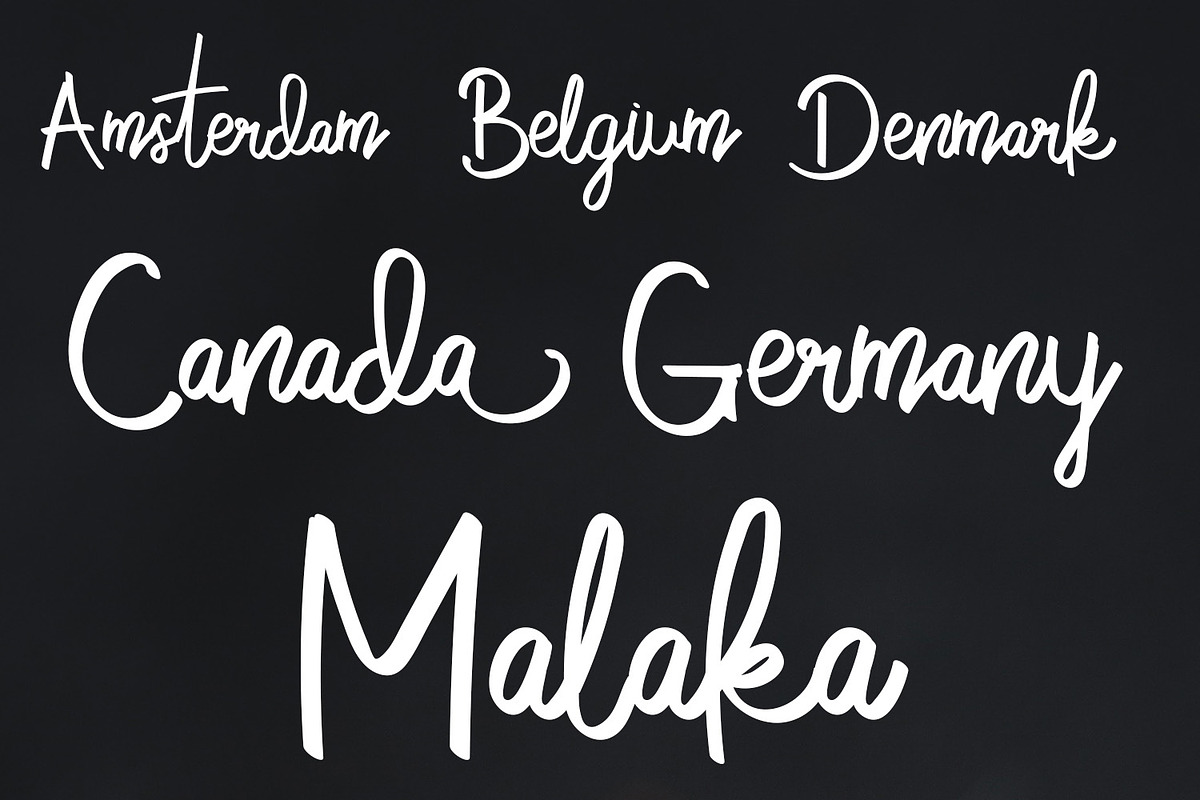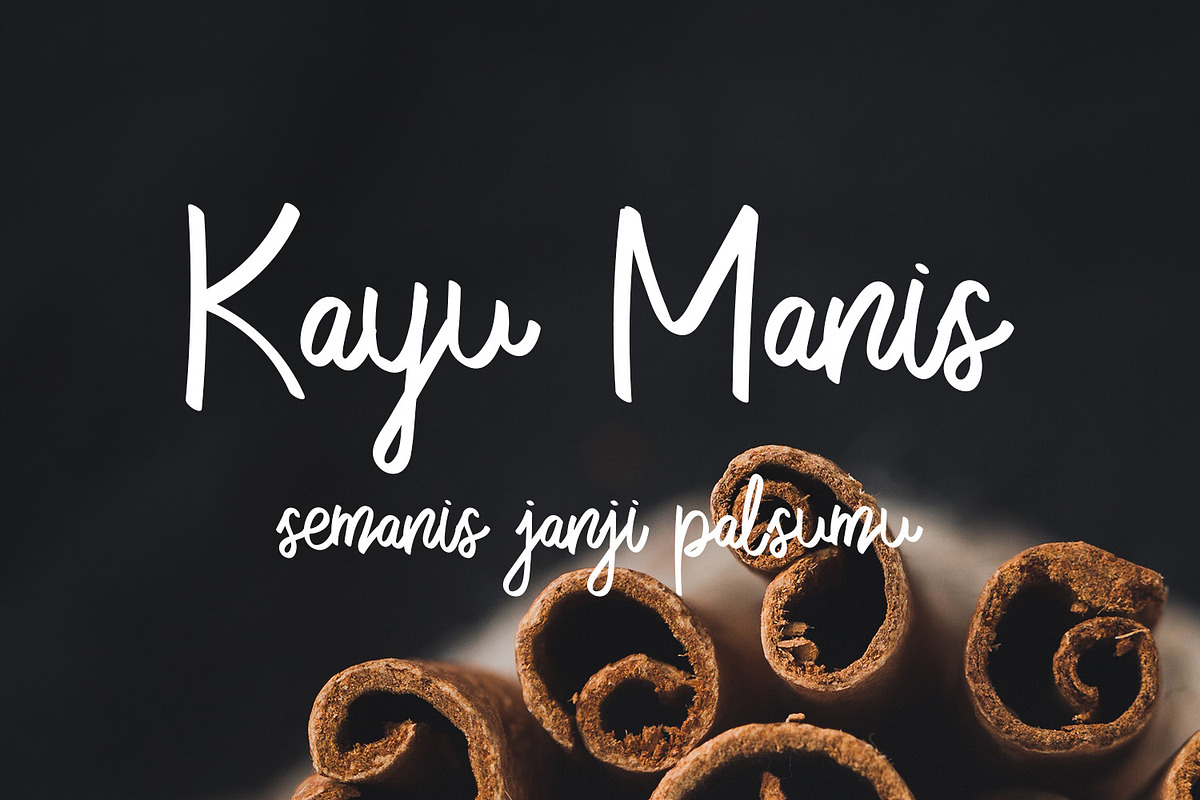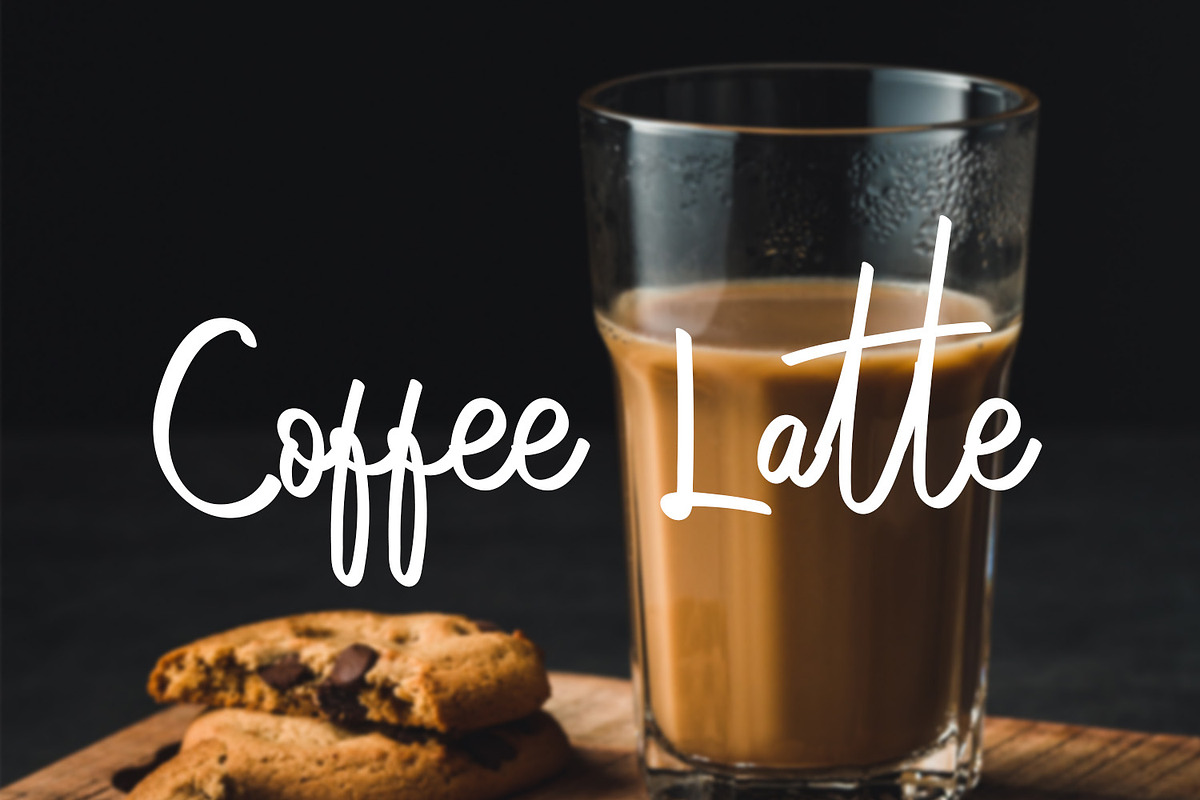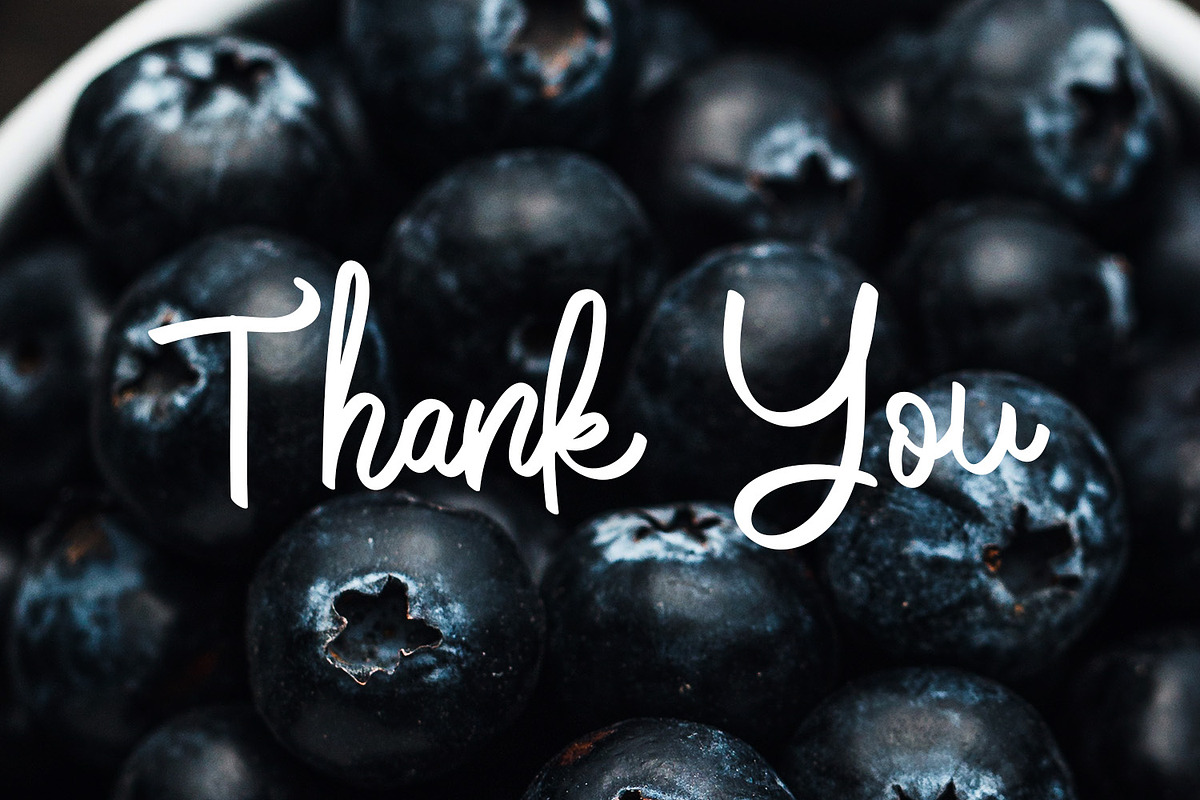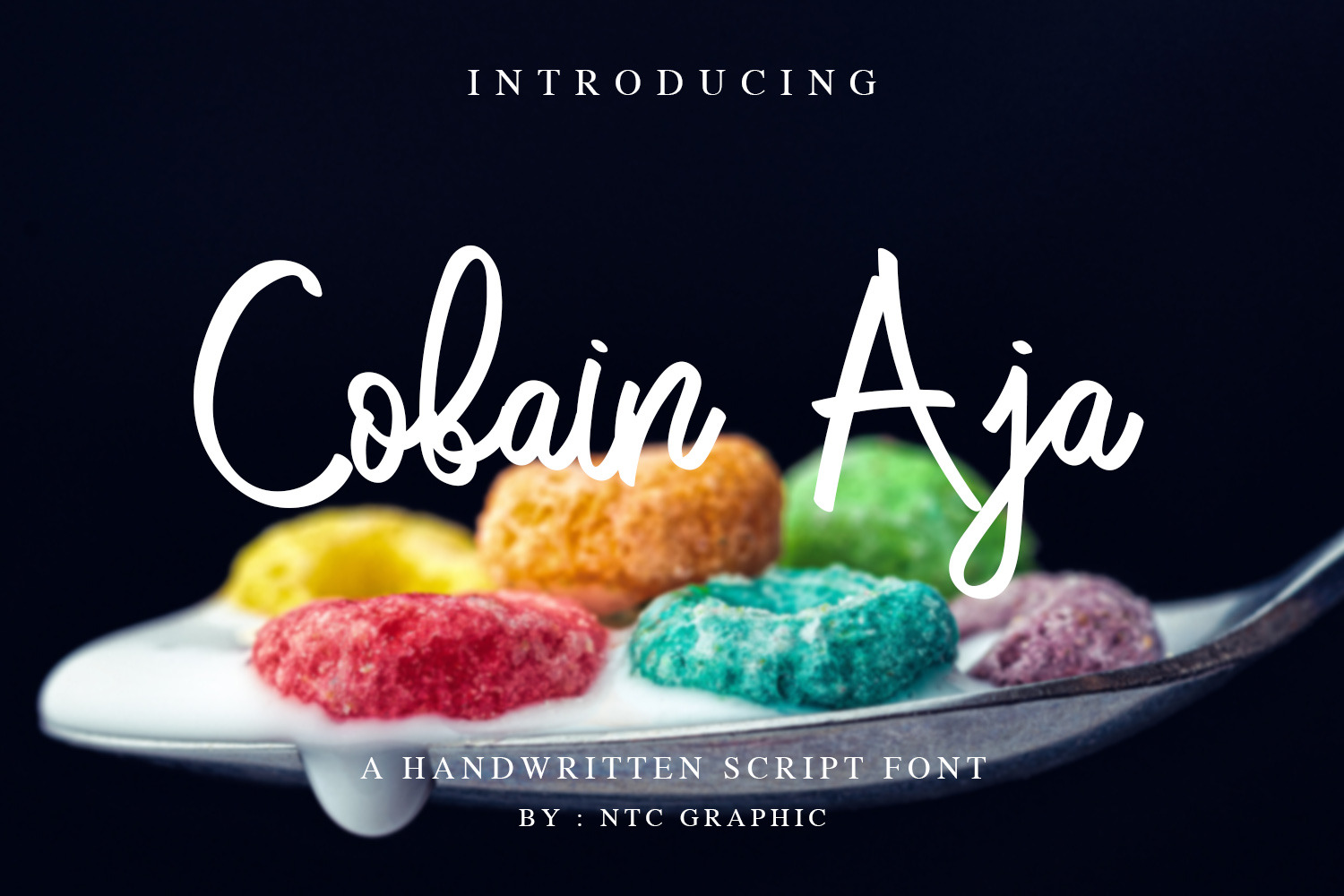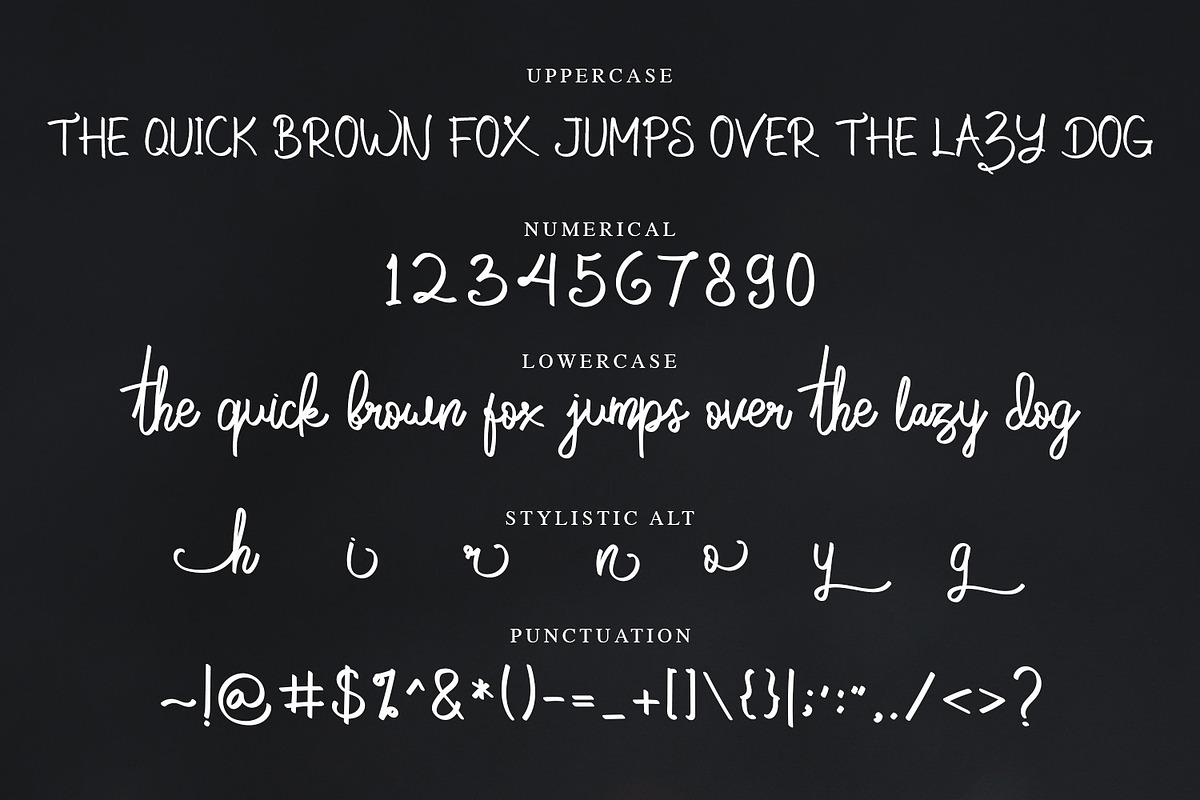
Cobain Aja - Script Font
Cobain Aja is a Handwritten Script type font that is very suitable for the publication needs of fashion, magazine, t-shirt design, flyers, and can also be used as a signature font. This font has a beautiful script character but has a firm side in it. Made with hand scratches directly and then processed into font processing software.
Cobain Aja font with uppercase characters A-Z, lowercase characters a-z, punctuation and stylistic alternate
-Ligatures
-Stylistic Alt